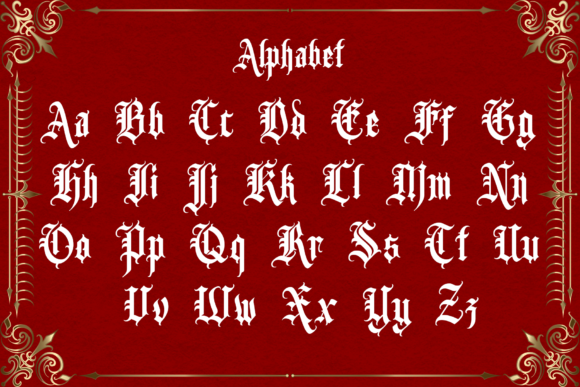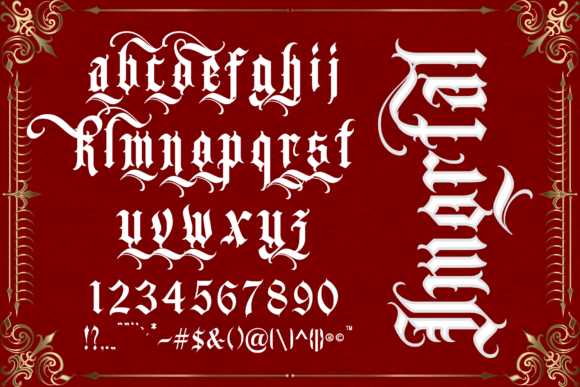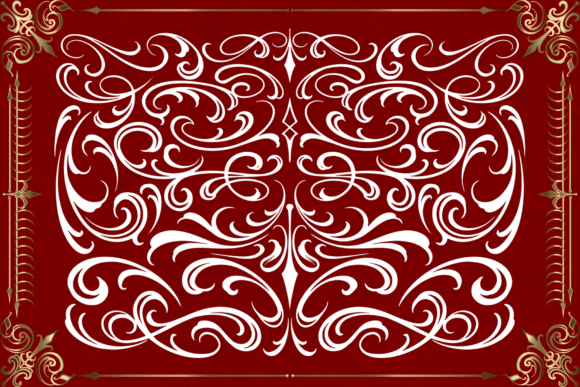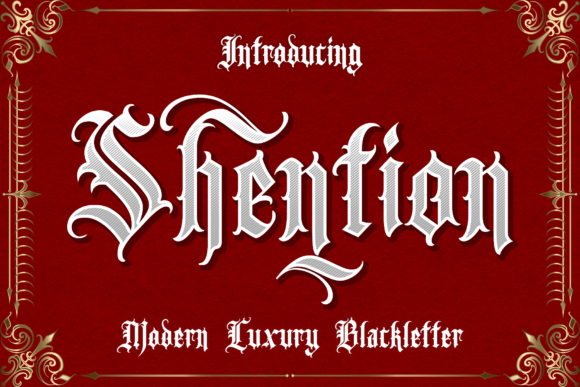
Introduction to Shention Font
Shention is an authentic and highly detailed blackletter font.
It has a vintage feel, and as a result, it matches a wide variety of designs Fall in love with its bold, creative style, and use it for your next creative project.